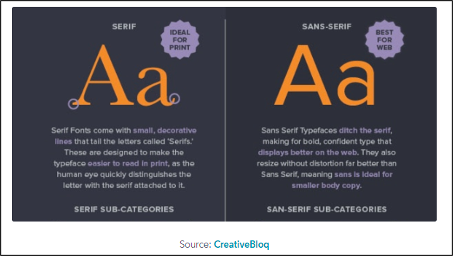
Emotional and Persuasive Perception of Fonts
What makes fiction a bestseller? Well, besides the attributes of the story such as the subject and the plot, the role of visual elements is of equal importance. Fonts constitute integral tools for visual communication. Understanding the importance of fonts is a crucial aspect of the font psychology which aims at studying the persuasive meaning of the text in two different fonts. Such a study has found relevance for art, design, visual communication professionals. Researchers have also found a direct correlation between a font type and brand message. Furthermore, the font psychology dealing with the ability to alter the convincing qualities of a text, as well as perception of other emotional qualities, has relevance for marketing, advertising, and persuasive literature professionals. For instance: if a cookie box had a brand name written in an appropriate font, the end-users were more likely to take a cookie from that box. According to contemporary design experts, a format of communication is determined by the content and objective of the text. Typography is an essential component in the format in decoding the objective of the text and communicating a key message to the target audience.
Comprehending the importance of fonts calls for a clear distinction between fonts and typefaces. It is to be remembered that typeface is a wider category and comprises many fonts. Hence, a single typeface comprises numerous fonts. For instance: Times New Roman is a part of Serif family and Serif here refers to a typeface. The image below describes the personality attributes of various fonts
Wichita State University conducted a comprehensive study on fonts wherein over 500 respondents were surveyed about their perception of various font and typefaces. The findings can be broadly summarized as
Serif scored highest on being Formal, Mature, Stable and Practical.
Sans serif fonts were broadly perceived as neutral
Script fonts were attributed to being “feminine,” “funny,” and “casual.”
Modern fonts were called “masculine,” “assertive,” and “coarse.”
Monospaced fonts were perceived as “dull,” “plain,” and “unimaginative.”
The grid below summarizes the findings of the study in a comprehensive manner.
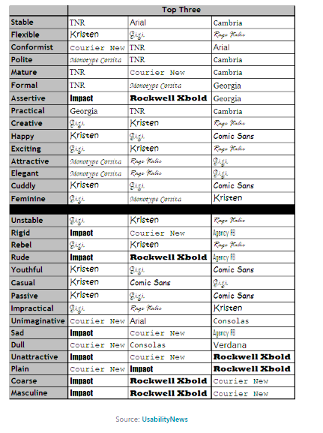
Another study conducted by New York University delves into drawing parallels between reading material in different fonts gauging the persuasive impact of the font on the message. The study chose two readings on government issues and education policy from a New York Times satirical editorial as a starting point. Based on respondents’ feedback on the emotional attributes of fonts, the study highlighted that Times New Roman is more satirical (angry and funny) than Arial. However, the study suffers from two major shortcomings. Firstly, the respondent population was American, and the results cannot be generalized for other populations. Additionally, the choice of satirical readings for the study limits the relevance of these findings to a specific style of written communication.
It can be assumed that emotions offer the secondary explanation of a concrete textual message, just as additional lines and curves at the end of letters can be construed as secondary and parallel messages transcending the physical representation of the message. This leads to certain takeaways from this theory. Firstly, there is a need to formulate a design and content strategy with a choice of fonts as a key focus for drafting clear, easy to read the text. If one were to go by conventional observation, 20 percent of blogs use Georgia(serif) for header text and 20 percent of blogs use Arial (Sans Serif) in the blog body copy. Also, the choice of fonts is dependent on the objective. If the objective is to target a wider audience, use the typography which is universal and accessible. On the other hand, if the target is a niche audience, one must use a font that is most appropriate for that set of audience. For instance: Script typeface is generally referred to as playful and is suitable for the website of kids’ e-commerce store. In the below set of images, notice the type of font used. The font used for Amazon e-commerce website caters to the general audience whereas the font of hopscotch.com is more stylish and is meant for kids
Also, fonts indicating a call to action, headline and landing pages should be bold, clear and legible. They should motivate visitors to take the desired action. Thus, well-crafted typography can captivate the audience, evoke emotions and reinforce brands’ key messages. Here are certain key elements to be incorporated for a better understanding of font psychology.
Use Visual Hierarchy: Incorporating visual hierarchy enables the reader to quickly glance through the content, identify key elements and comprehend the co-relation between elements. This is important as readers might face paucity of time or interest to go through the entire content word-by-word. Broadly speaking for any content, there should be two types of fonts: headline and body font should have some variation in terms of colour, font weights or font families. The set of images below demonstrate the impact of visual hierarchy. The image with ‘After’ as caption is more legible and easy to comprehend as compared to the image with ‘Before’ as caption.
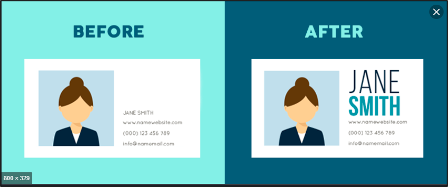
Choose legible, easy to read font: Readability and legibility are key factors to be taken into consideration while choosing the font. Readability refers to the arrangement of typefaces and words on a page while legibility enables a reader to distinguish between individual characters. The font suitable for the headline may not work well in the body copy. For instance: Display faces are specifically designed for headlines. Serif is commonly used in print while sans serif is common for websites due to resolution and screen size. The image below illustrates this aspect.
For readability, it is important to consider paragraph spacing, font size and letter spacing. The set of images below represent the spacing and readability of various fonts.
Use contrast wisely: Space and colour determine contrast. A darker text on a light background is favourable for reading whether in blogs or print as it provides makes reading easier. Coloured type is used for headlines and display text. The image below shows the difference between good and bad contrast.
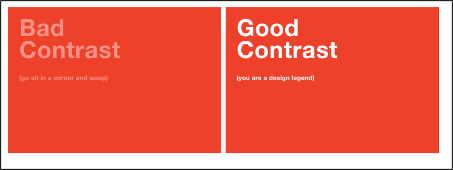
Be mindful of font-size: Font size is dependent on screen or surface the message is displayed on. For instance: in a paragraph, the font size should be such that it should not contain more than 45-70 characters per line.
Pay attention to paragraph spacing and line-height: The spacing between each line of text can have a profound impact on readability. The space between lines of text, i.e. leading should be at least the point size. Generally, digital experts prefer a leading size of at least 150 percent of text size. The image below highlights the importance of line height.
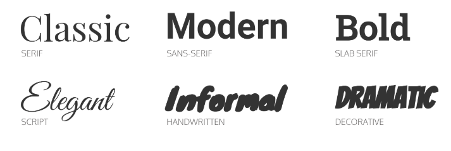
Refer to font delivery service: One might want to refer to font delivery service in case of the digital medium. These are subscription-based services gives access to a variety of fonts and deliver them to the web properties in a readable way.
Thus, the importance of fonts cannot be overlooked if one were to make brands or artwork resonate with the target audience. Understanding the font psychology and perception of fonts reflects good taste in design and relies on experience.